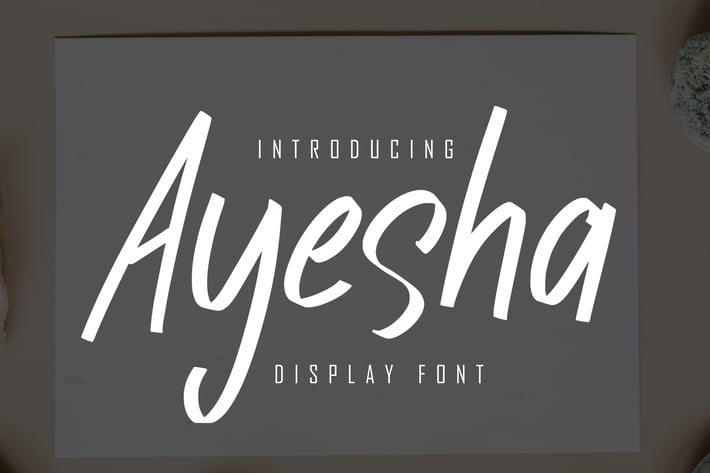
Ayesha Display Font
Ayesha is a playful and unique display font with a charming feel. Get inspired by its unique authentic charm!
+ Basic Latin Language Support (AÀÁÂÃÄÅCÇDÐEÈÉÊËIÌÍÎÏÑOØÒÓÔÕÖUÙÜÚÛWYÝŸÆß )